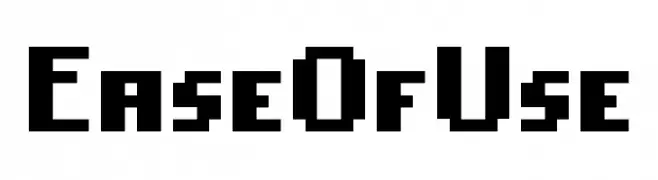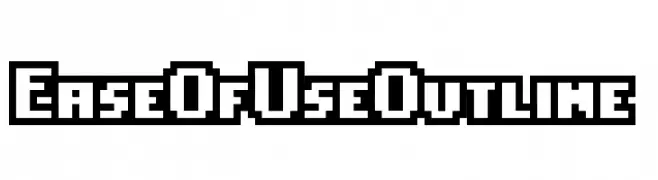
( Hazel Abbiati - diamondidiocy.tumblr.com )
A bold, pixelated font with a retro digital aesthetic.
( Hazel Abbiati - diamondidiocy.tumblr.com )
A bold, pixelated font with an outlined, retro digital style.
( Hazel Abbiati - diamondidiocy.tumblr.com )
A bold, pixelated font with a retro digital style.